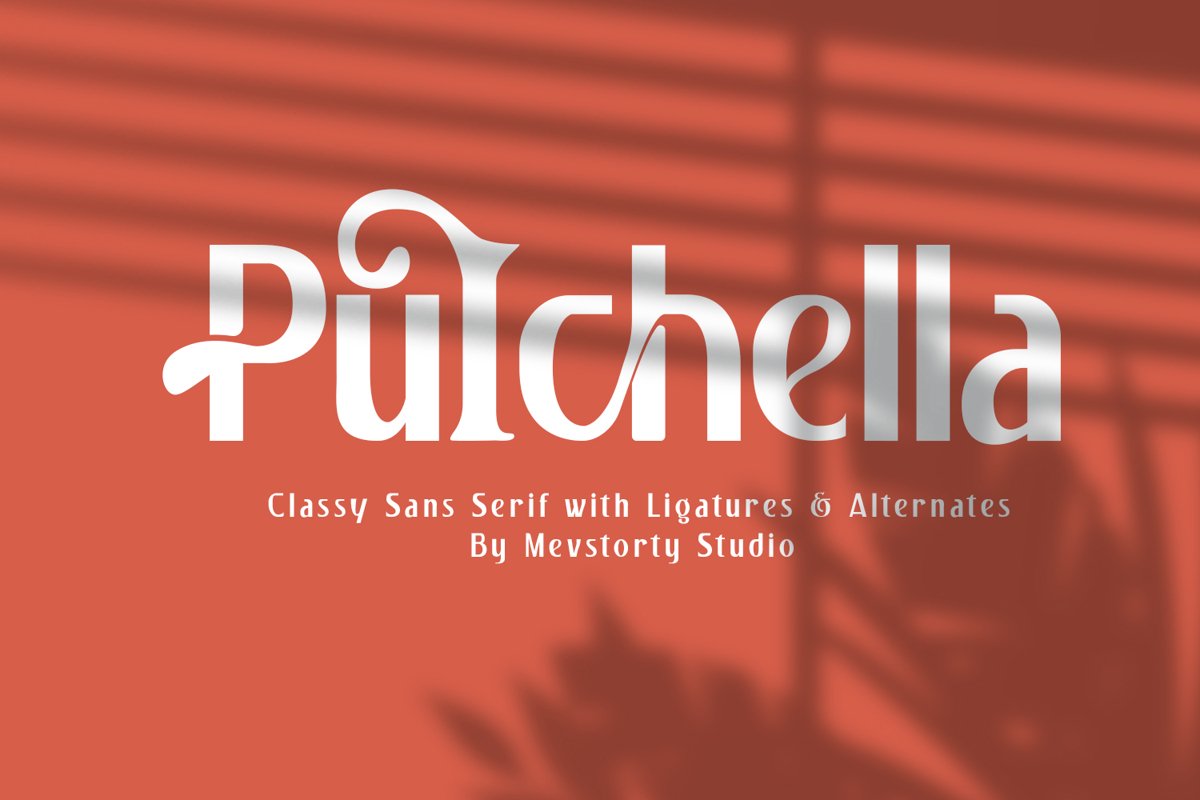
Pulchella Family Font | 6 Style
Pulchella Font
This modern serif typeface features serif. The name of this font is taken from one type of tulip. Perfect for gorgeous logos & titles, Pulchella will pair beautifully with many fonts and work well with whatever project you're working on.
• Containing a full set of punctuation and numerals
• Include Alternate, Swash & stylistic set Typeface.